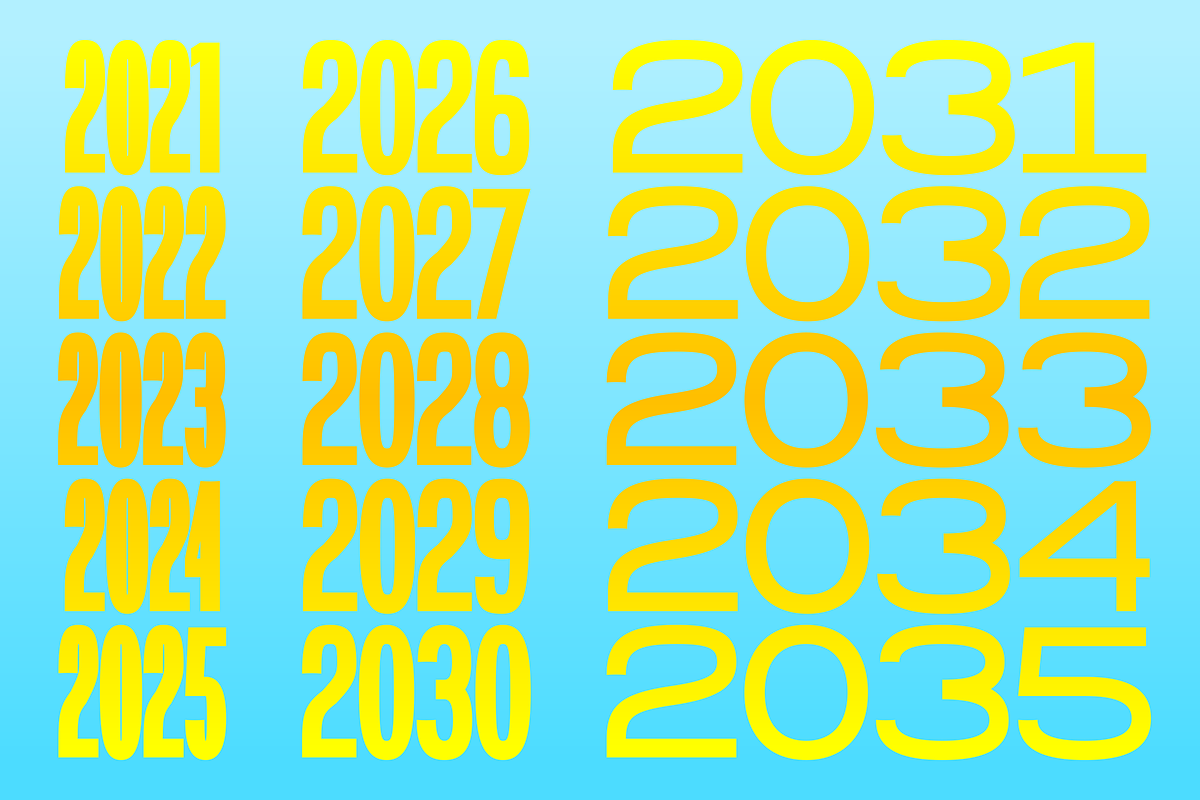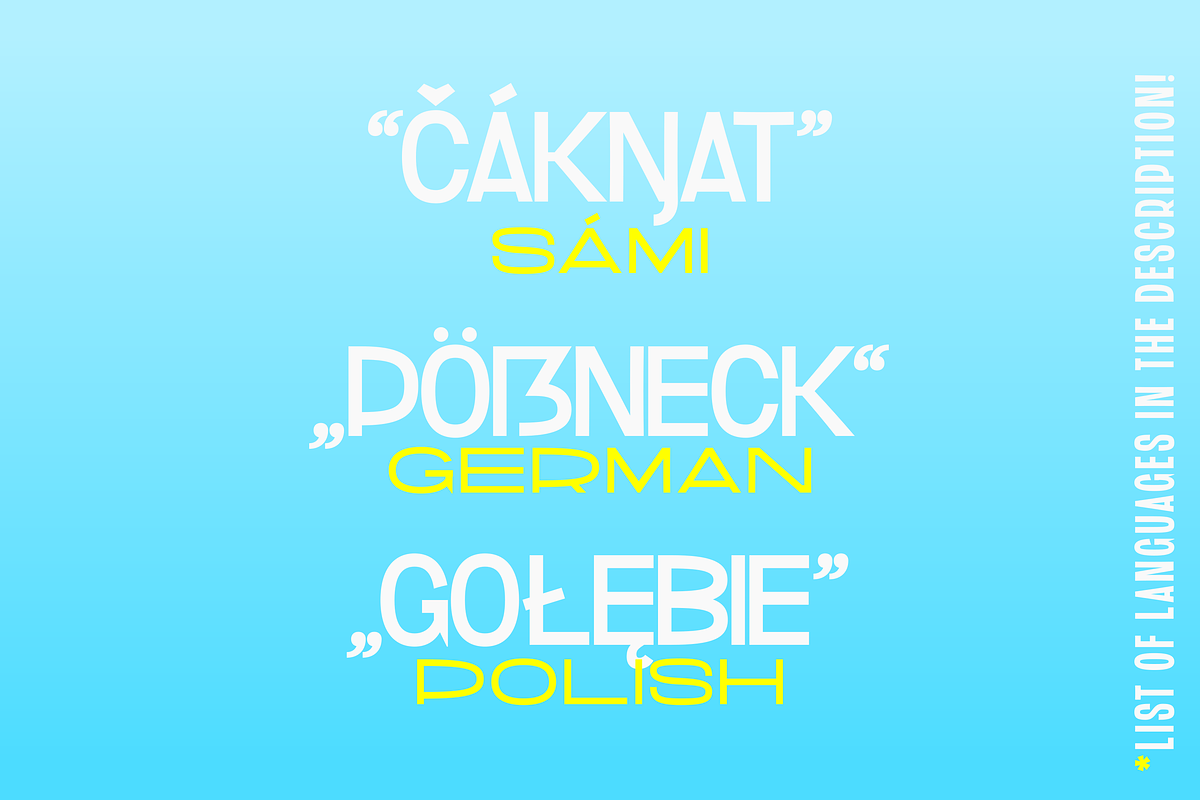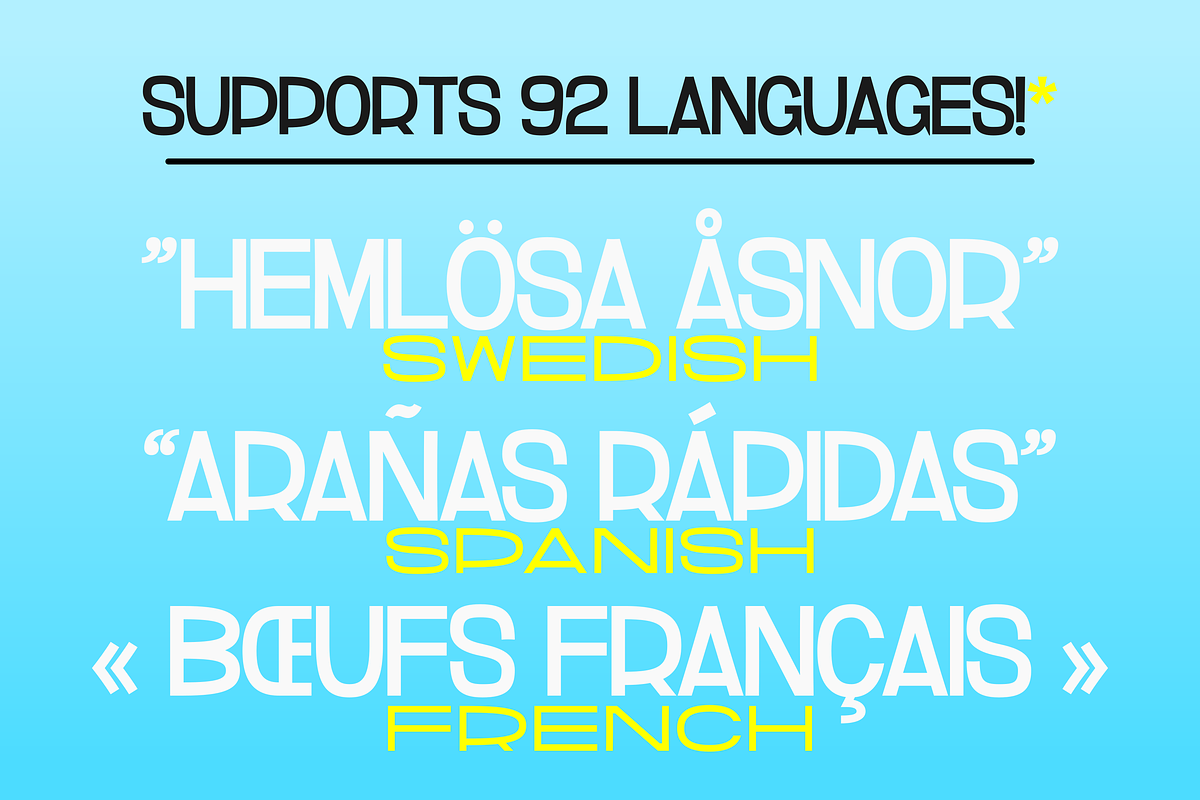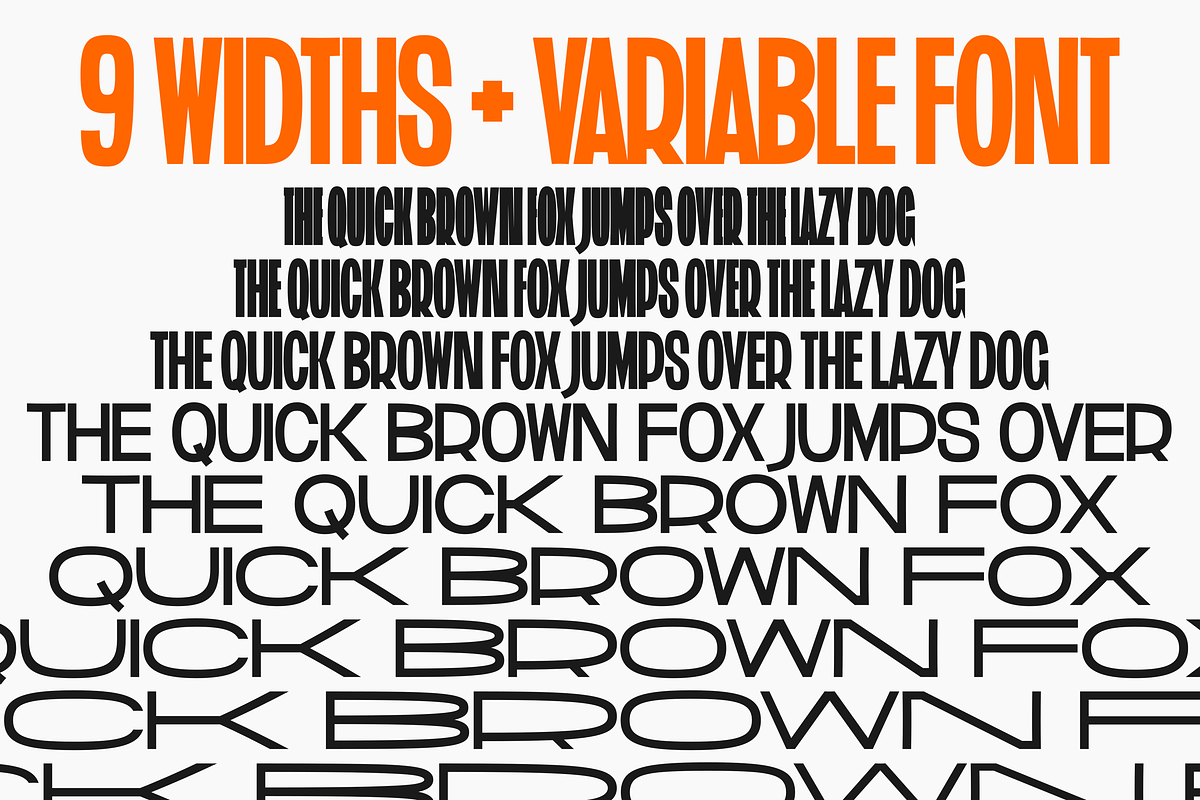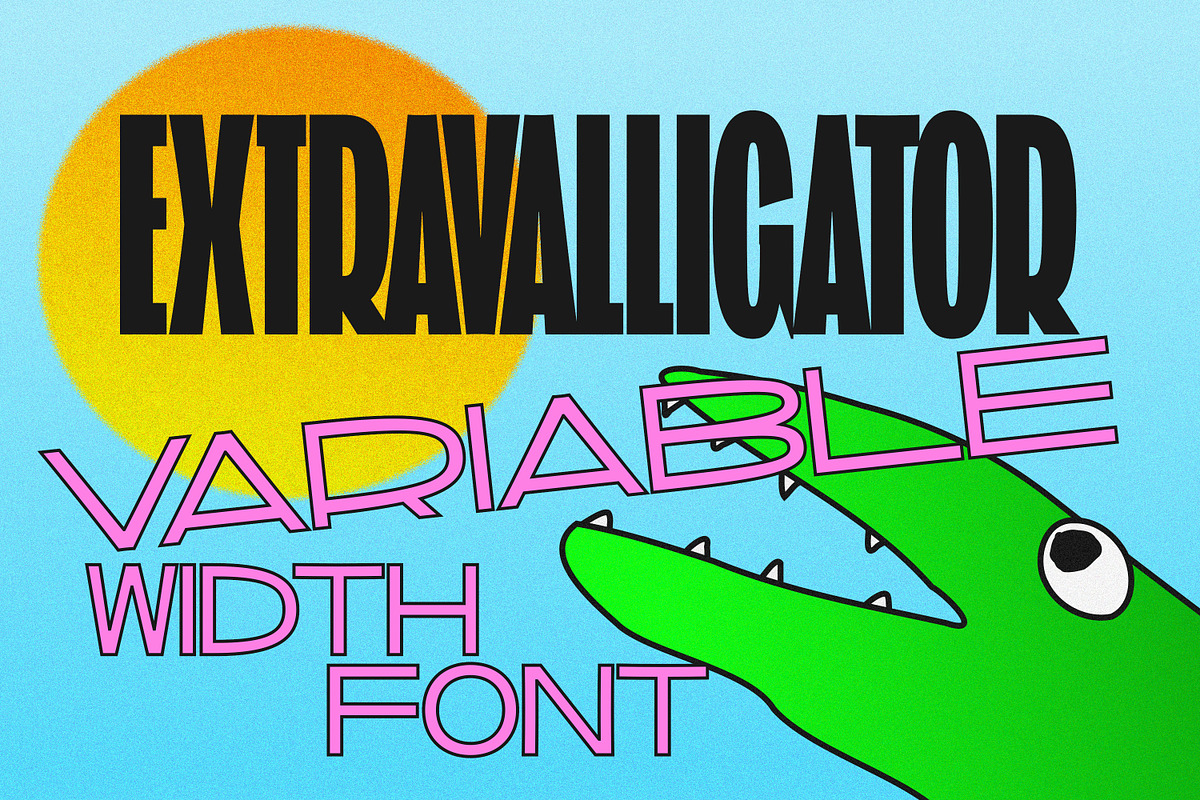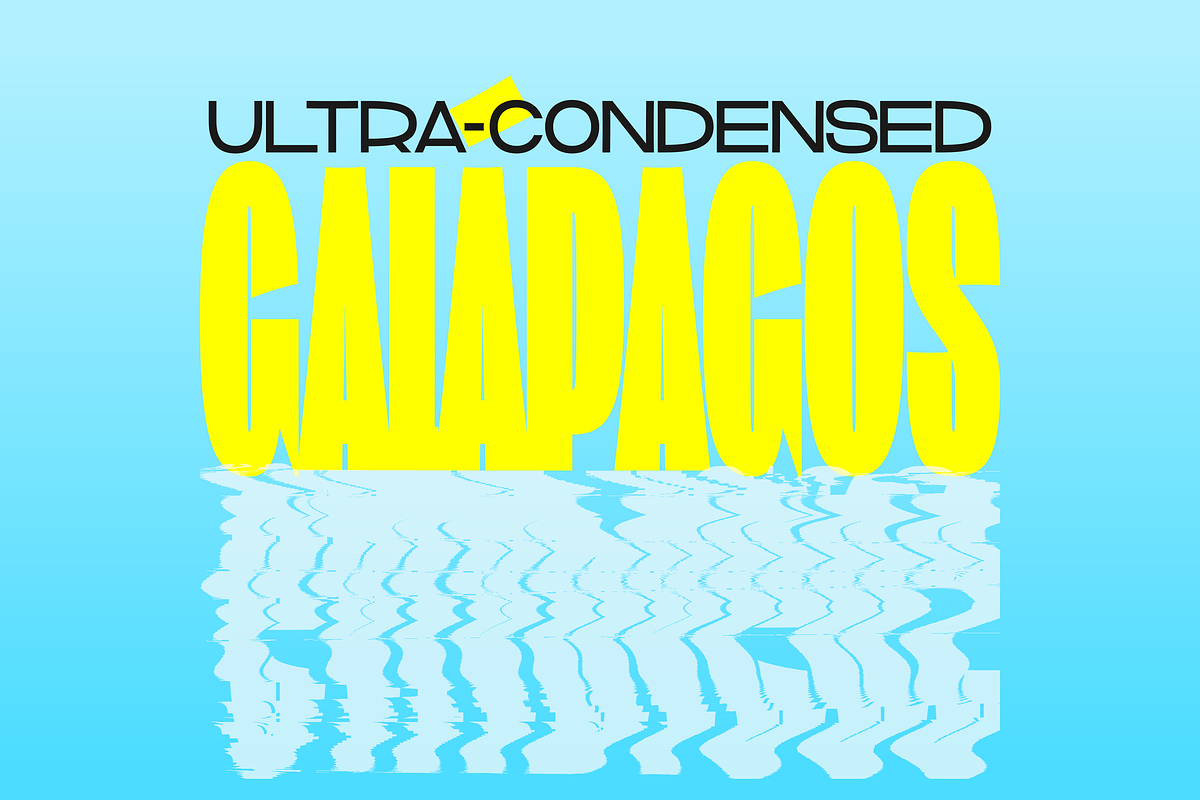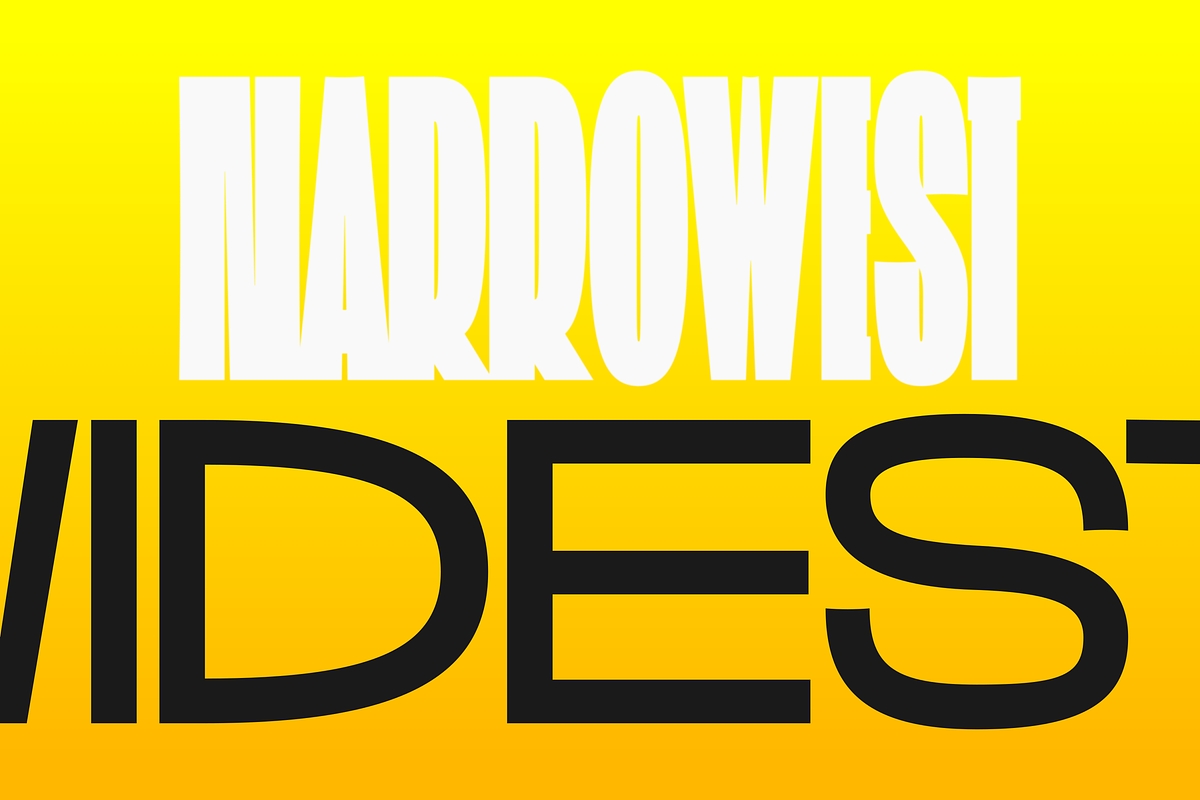
Extravalligator - Variable Font
Extravalligator is a variable display font with a comic book inspired look. It's perfect for logos, branding, book covers, posters and such.